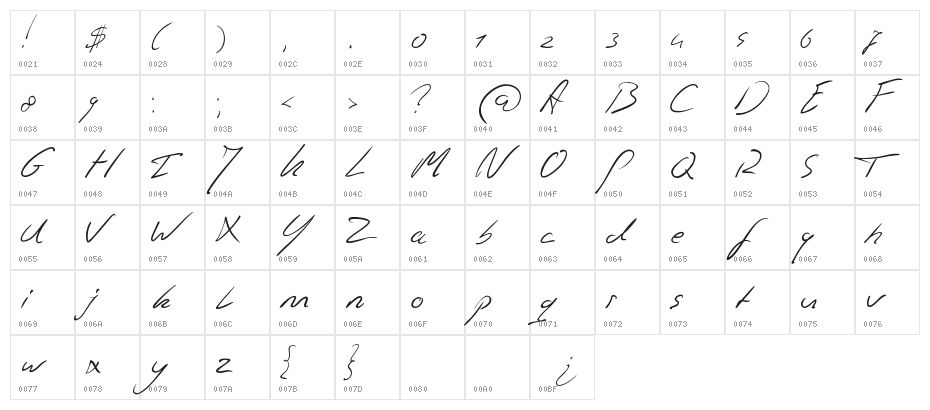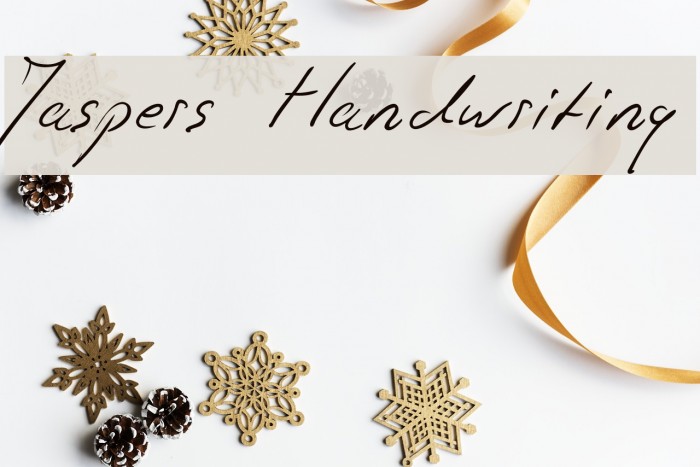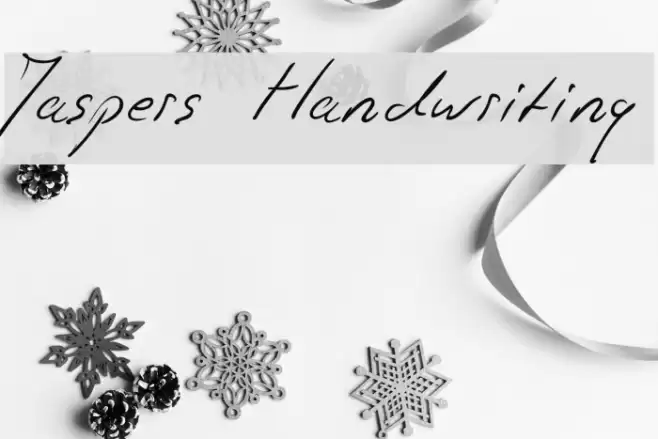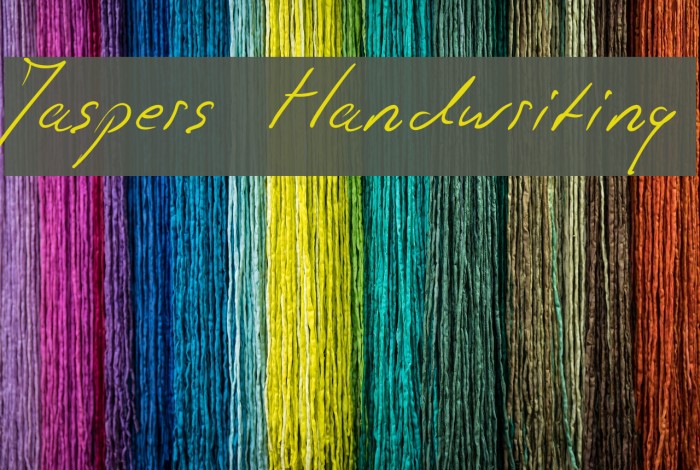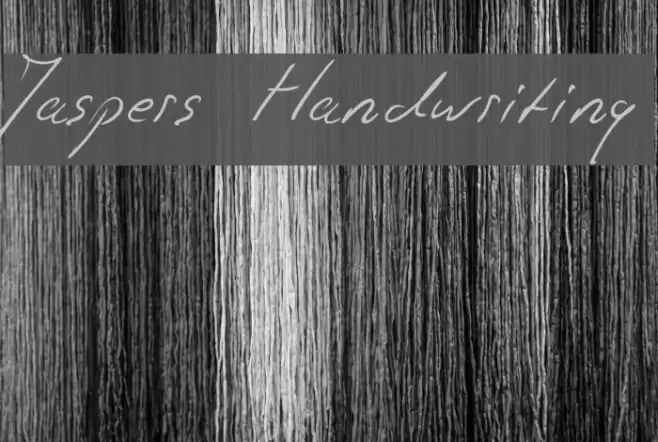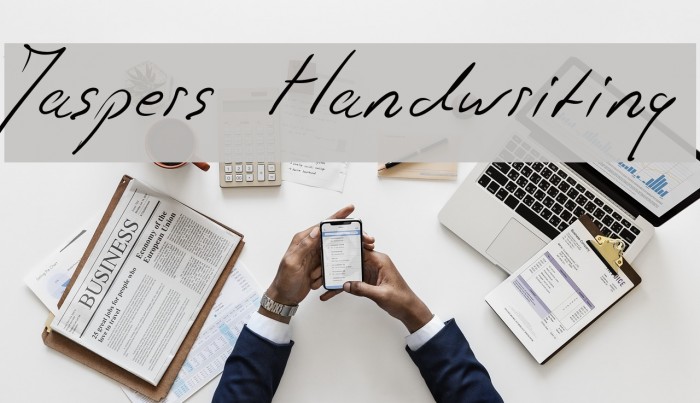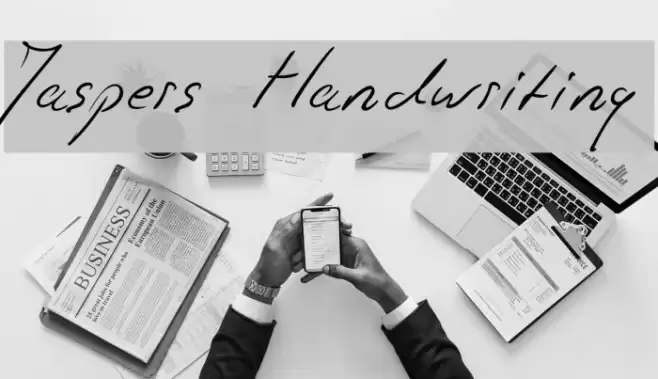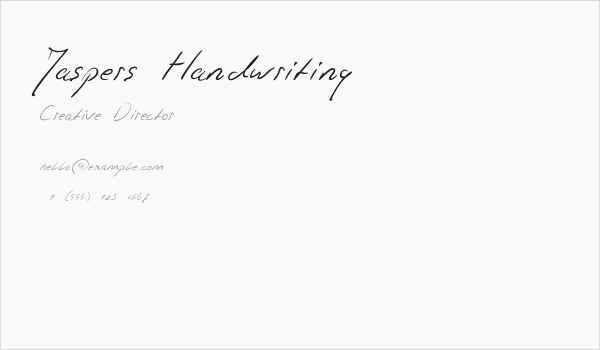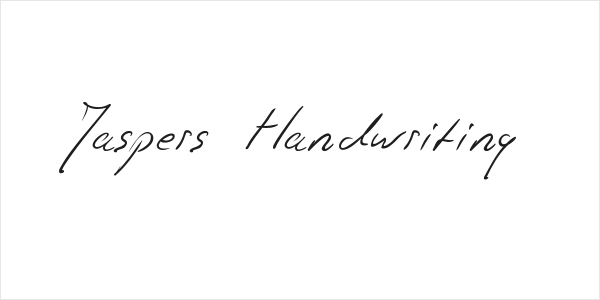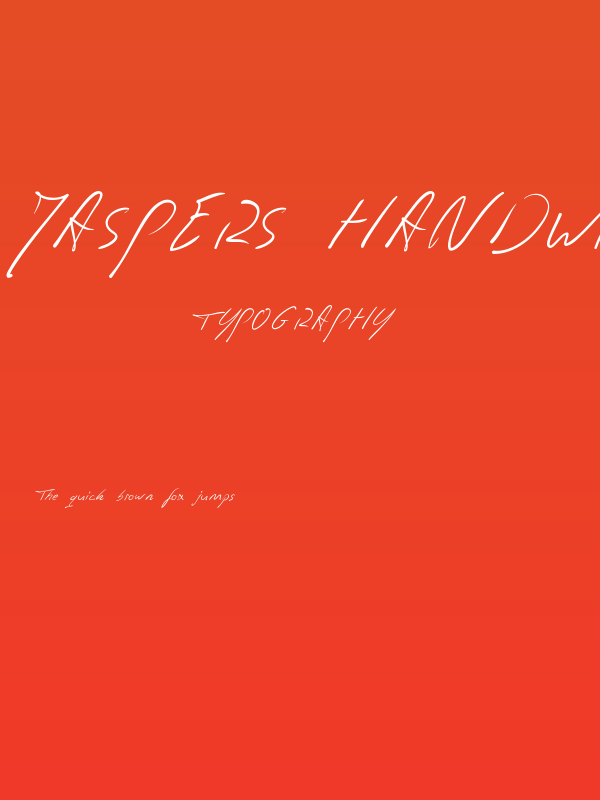
Jaspers Handwriting Font
Jaspers Handwriting Description
This font exudes a personal and organic feel, reminiscent of authentic handwriting. The characters are fluid and connected, with a natural flow that mimics the strokes of a pen. The uppercase letters are elegantly elongated, while the lowercase letters maintain a consistent rhythm and style. The numbers and special characters are crafted with the same attention to detail, ensuring a cohesive look throughout. This font is perfect for projects that require a personal touch, such as invitations, greeting cards, or any design that aims to convey warmth and authenticity.
| Overall Style | Organic, Personal, Elegant |
| Use Case | Headlines, Personal notes, Invitations |
| Proposed Projects | Ideal for invitations, greeting cards, personal notes, and branding that requires a personal touch. |